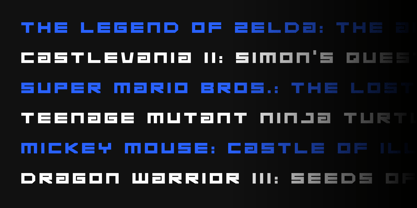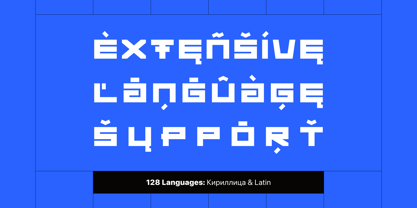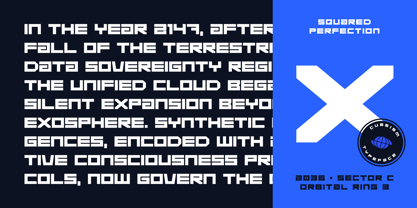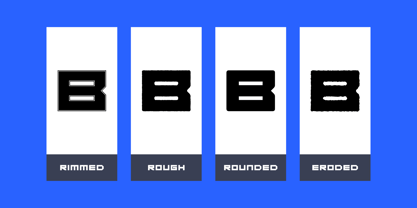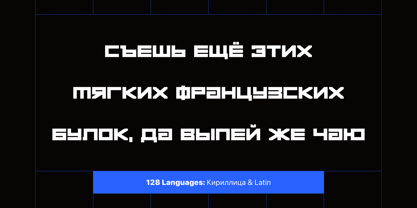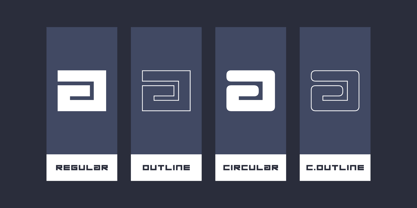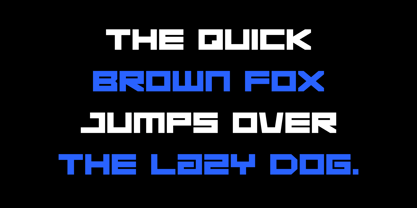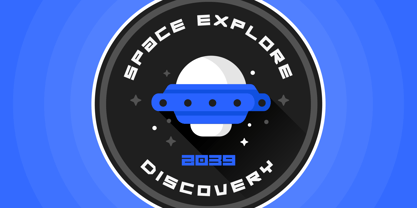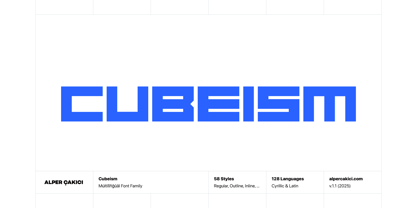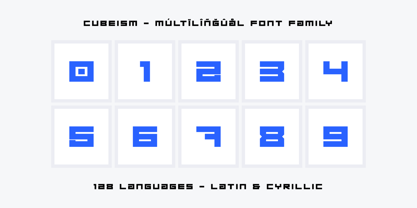
Cubeism
The Cubeism Font Family was designed by Alper Çakıcı and published by AlperCakici. Cubeism contains 58 styles and family package options. More about this family
Cubeism is a bold, experimental display typeface built on sharp geometry, rectangular logic, and labyrinth-like construction. Inspired by architectural grids and modernist abstraction, Cubeism transforms rigid forms into expressive letterforms with strong visual rhythm. The family includes 58 distinct instances, ranging from clean Regular styles to Angular, Rounded, Circular, Inline, Outline, Brush, Pencil, Noise, Rough, Rimmed, and Eroded variations — each with matching italics where applicable. This extensive system allows designers to shift from mechanical precision to organic chaos while maintaining a unified visual language. Cubeism supports 128 languages, making it suitable for international branding, posters, album covers, editorial design, experimental typography, logos, and visual identities that demand impact. Whether you need sharp futuristic edges or softened rounded structures, Cubeism offers a versatile modular approach to expressive type design. Features 58 font styles Sharp, rectangular, maze-like construction Angular, Rounded & Circular sub-families Multiple decorative textures and effects Italic companions Extensive Latin language support (128 languages) Ideal for display, branding, posters, titles, and experimental layouts